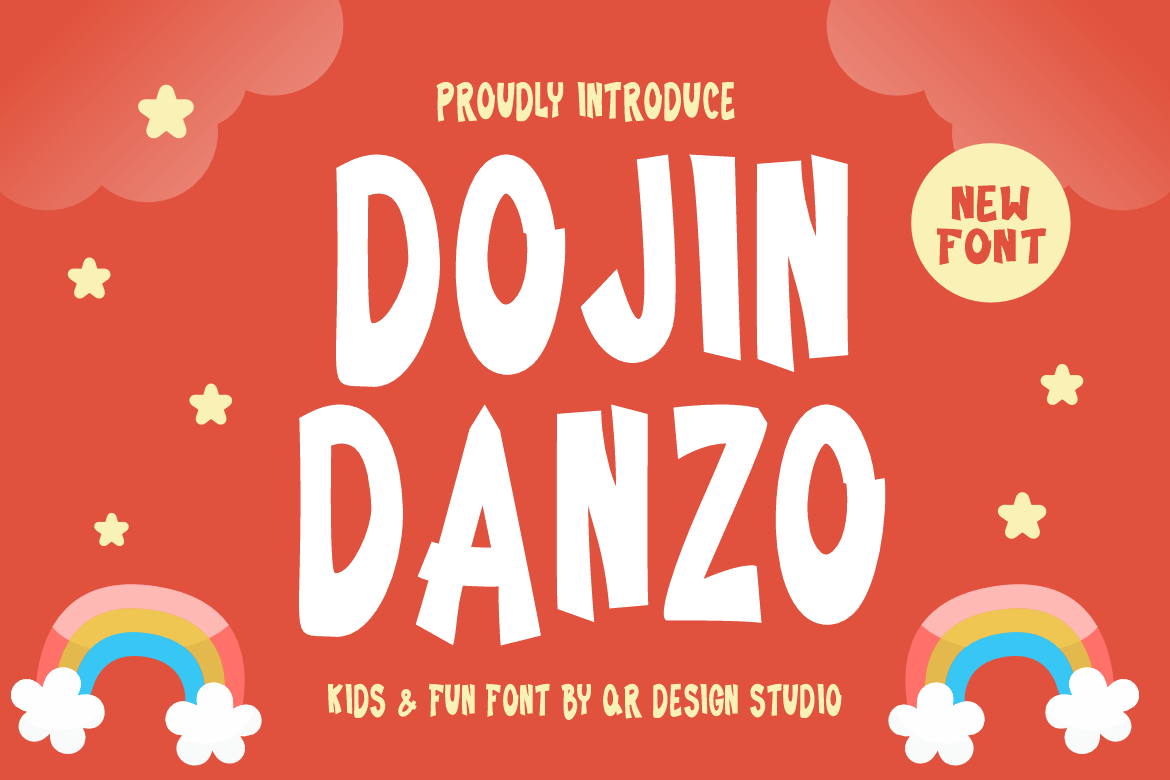
Dojin Danzo - Playful Font
Dojin Danzo - Playful Font is a bold and authentic display font. The font is suitable for any branding project like logo, kids, poster, food, and many more. Outstanding in a wide range of contexts.